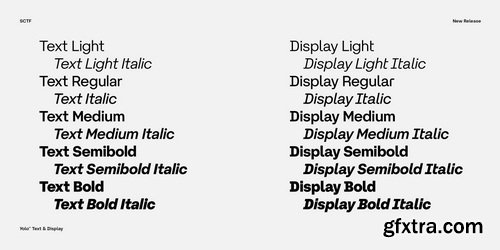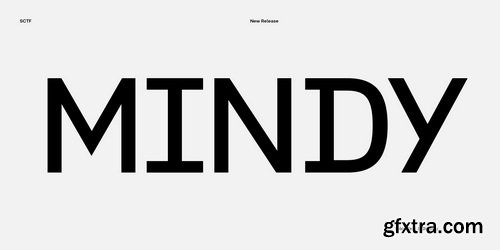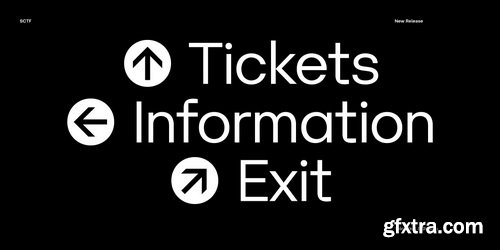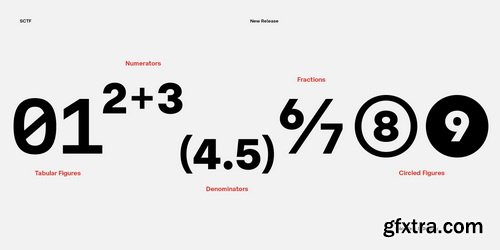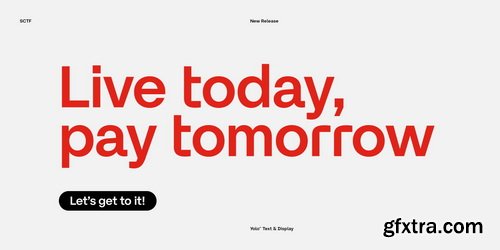
Yolo Complete Font Family
Yolo is a set of strictly geometric typefaces based on a fundamental circular, square, and rectangular base. Using a monolinear stroke in character construction, it combines refracted right angles and precise curves and ends all open shapes strictly horizontal or vertical. This gives the typeface a technicist to the industrial character. The universal validity of neo-grotesque predestines this typeface as a reliable workhorse for complete typographic work. The meticulous drawing in detail, the exact spacing, and the multitude of character alternatives, on the one hand, make Yolo a timeless tool for creating logotypes. At the same time, its extensive range of weights and italics is dedicated to composing entire identities. OpenType functions include several types of numerals, case-sensitive punctuation, or even arrow alternation. The character set offers a variety of symbols and shapes to enrich the raw typesetting, from useful currency symbols to gigantic quotation marks. In addition to the Latin script, the font includes Cyrillic and Greek, covering the needs of over 3 billion potential users, making Yolo a highly effective tool with a global reach.